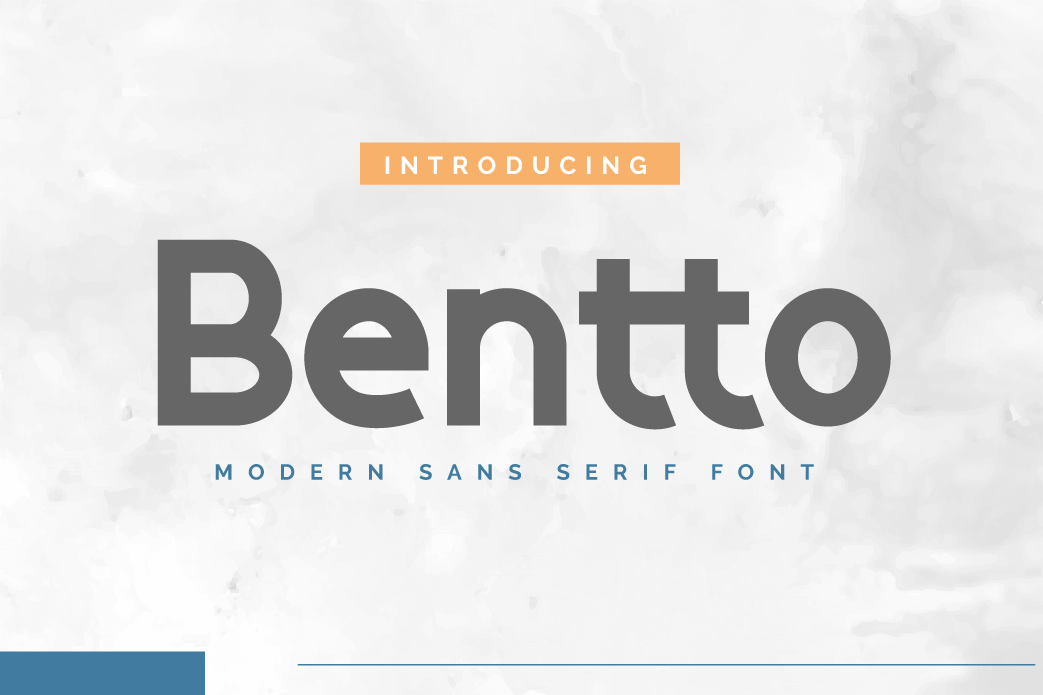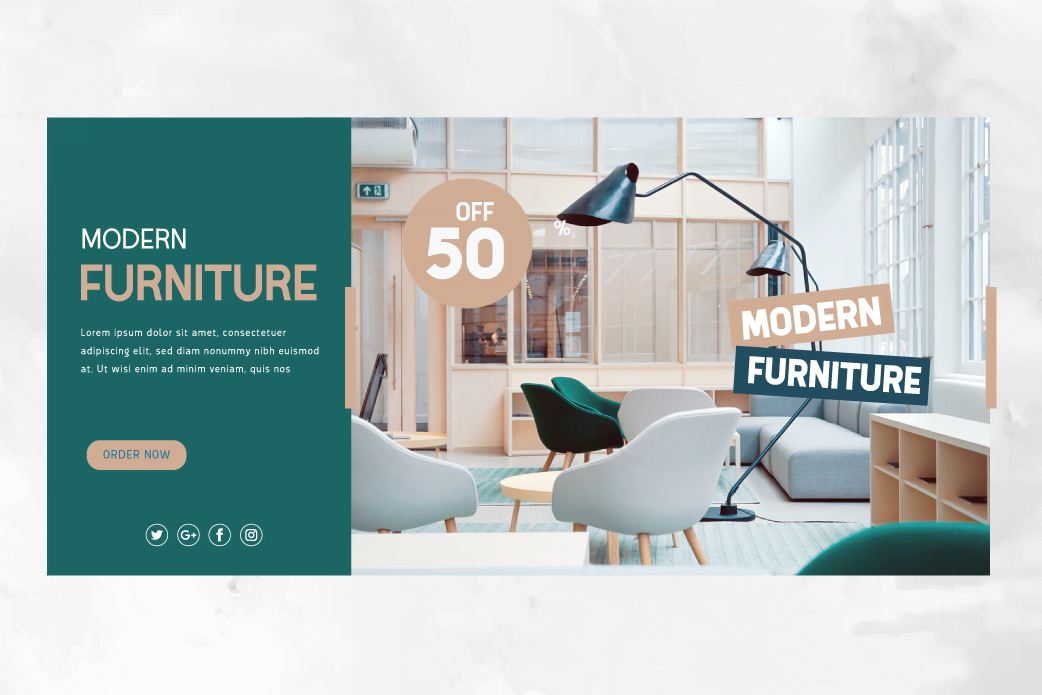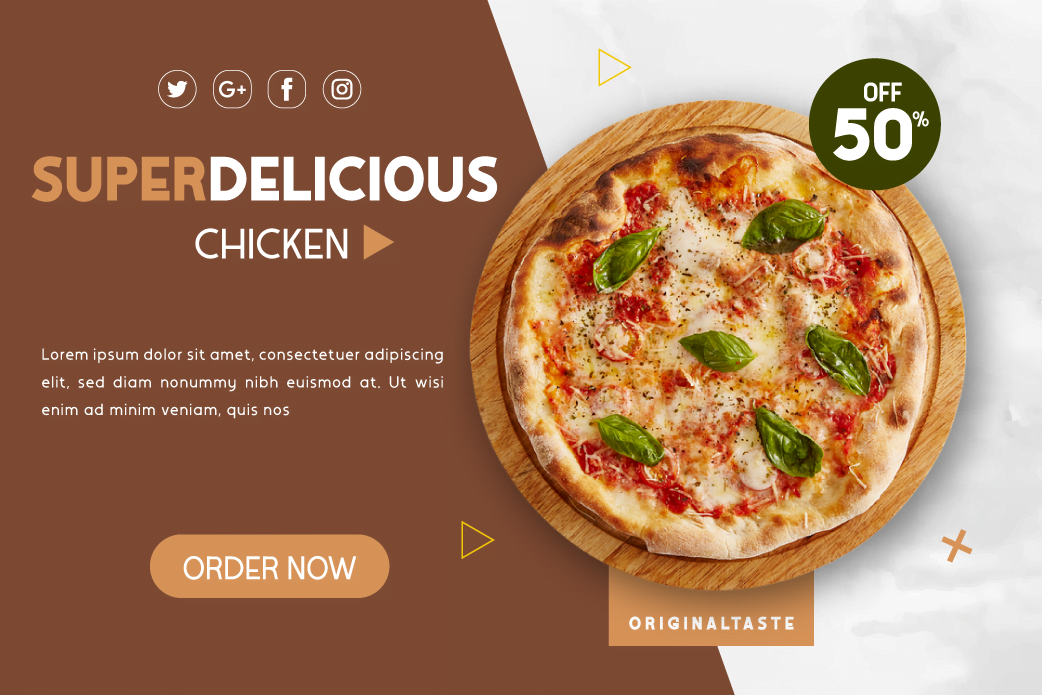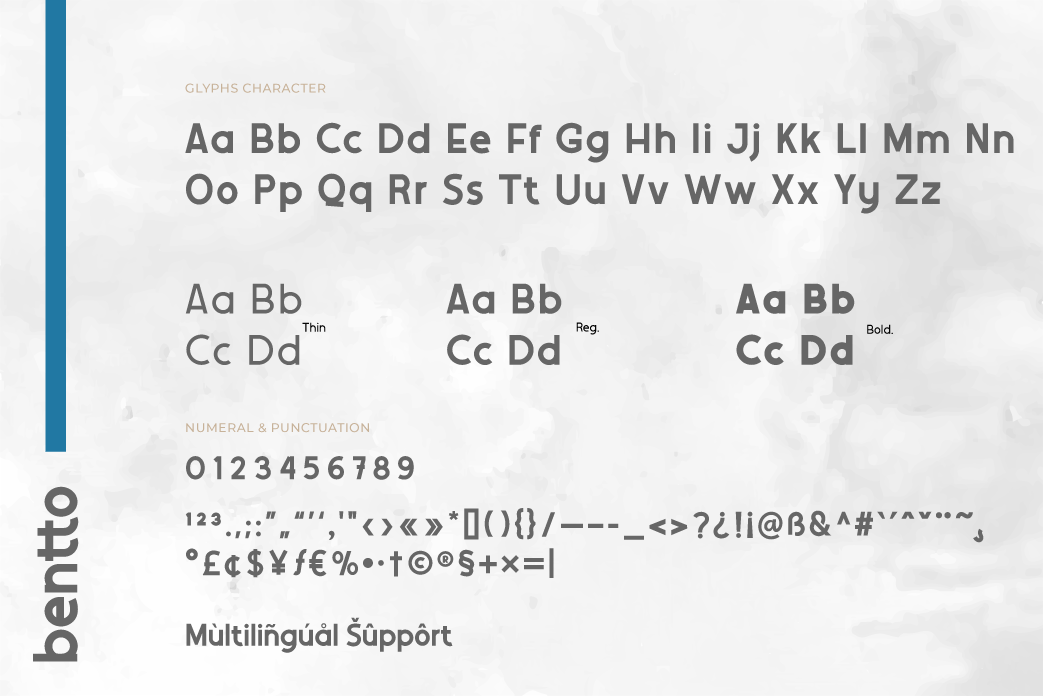
Bentto
Introducing our sans serif font, Named Bentto.
This simple, dynamic and exotic themed font has a character that is suitable for you to use in formal and informal design themes, both feminine and masculine design characters. this font will look beautiful.
This font is very suitable as text with displays for various kinds of branding, advertisements, posters, banners, packaging, news headlines, magazines, websites, logo design, banners, social media design and of course you can use a lot more.
• Fonts include multilingual support for; Afrikaans, Albanian, Croatian, Czech, Danish, Dutch, English, Estonian, Finnish, French, German, Hungarian, Italian, Norwegian, Polish, Portuguese, Slovak, Slovenian, Spanish, Swedish